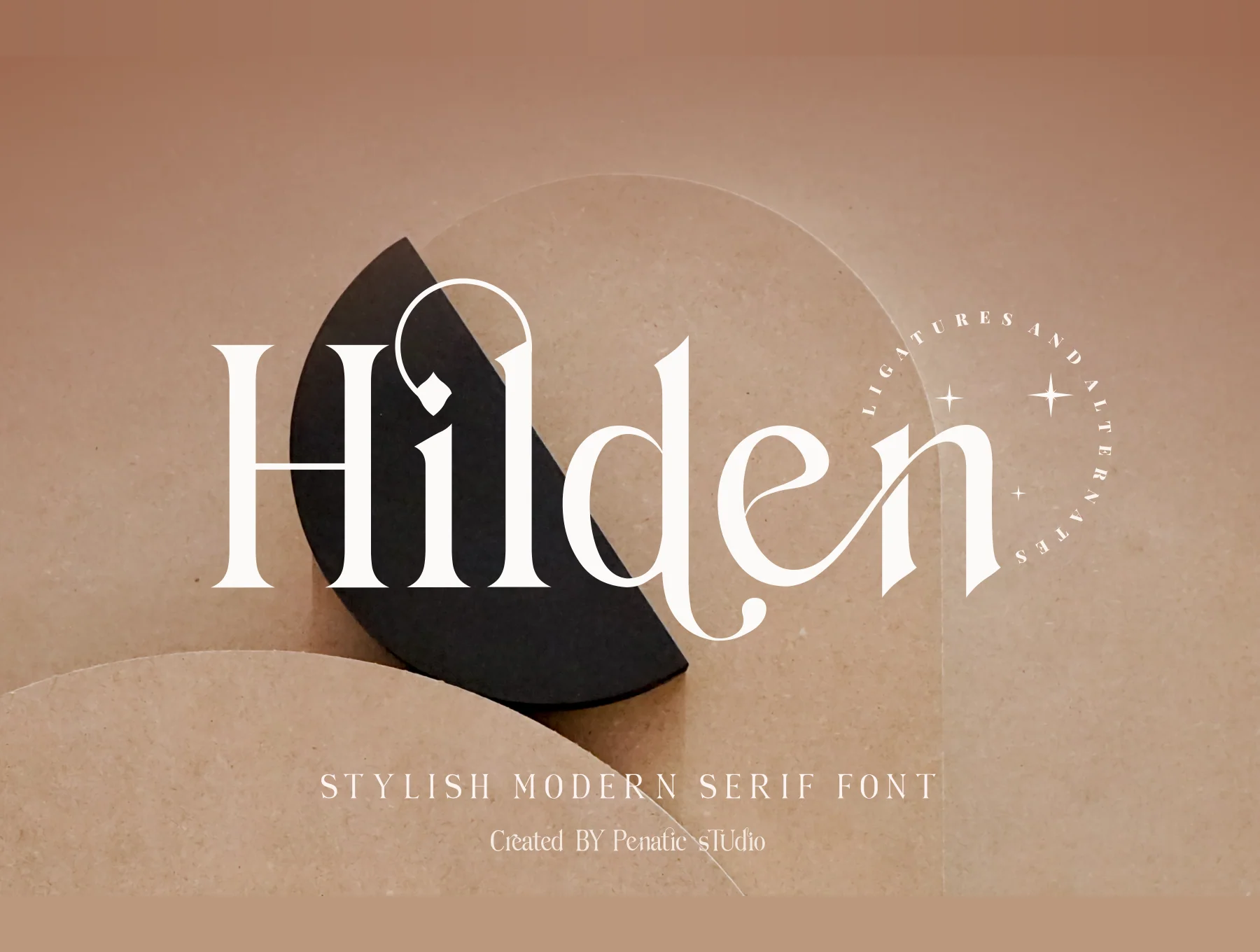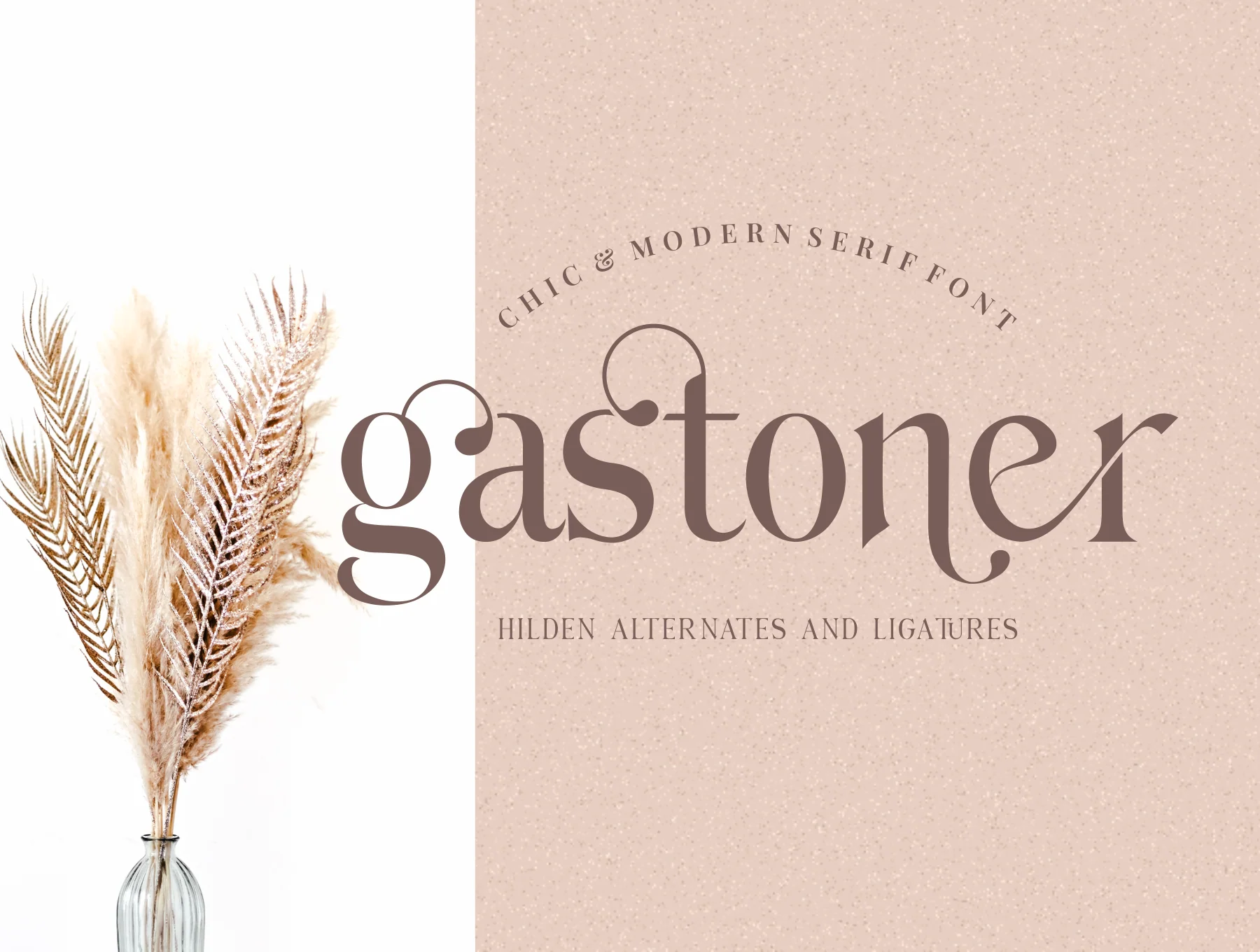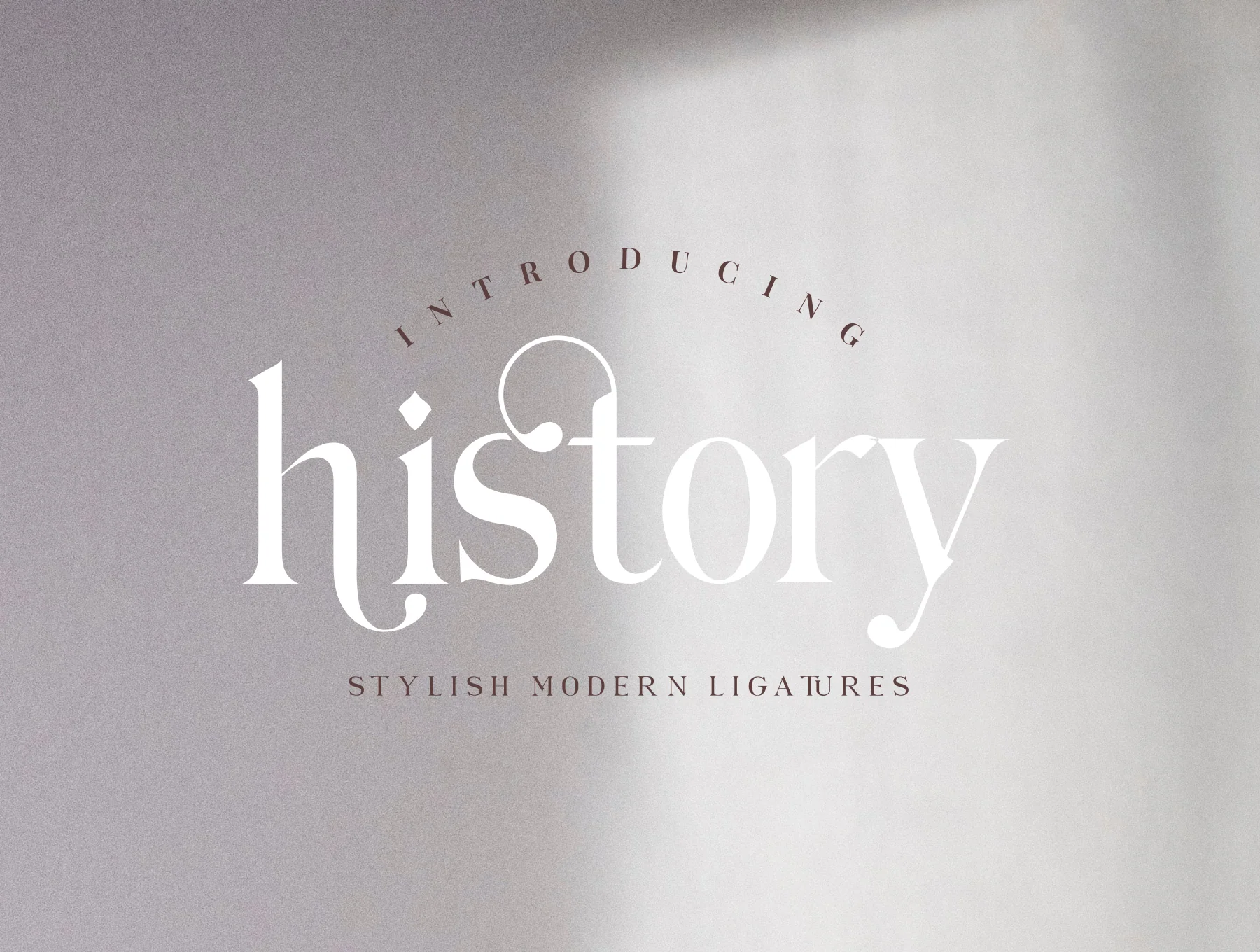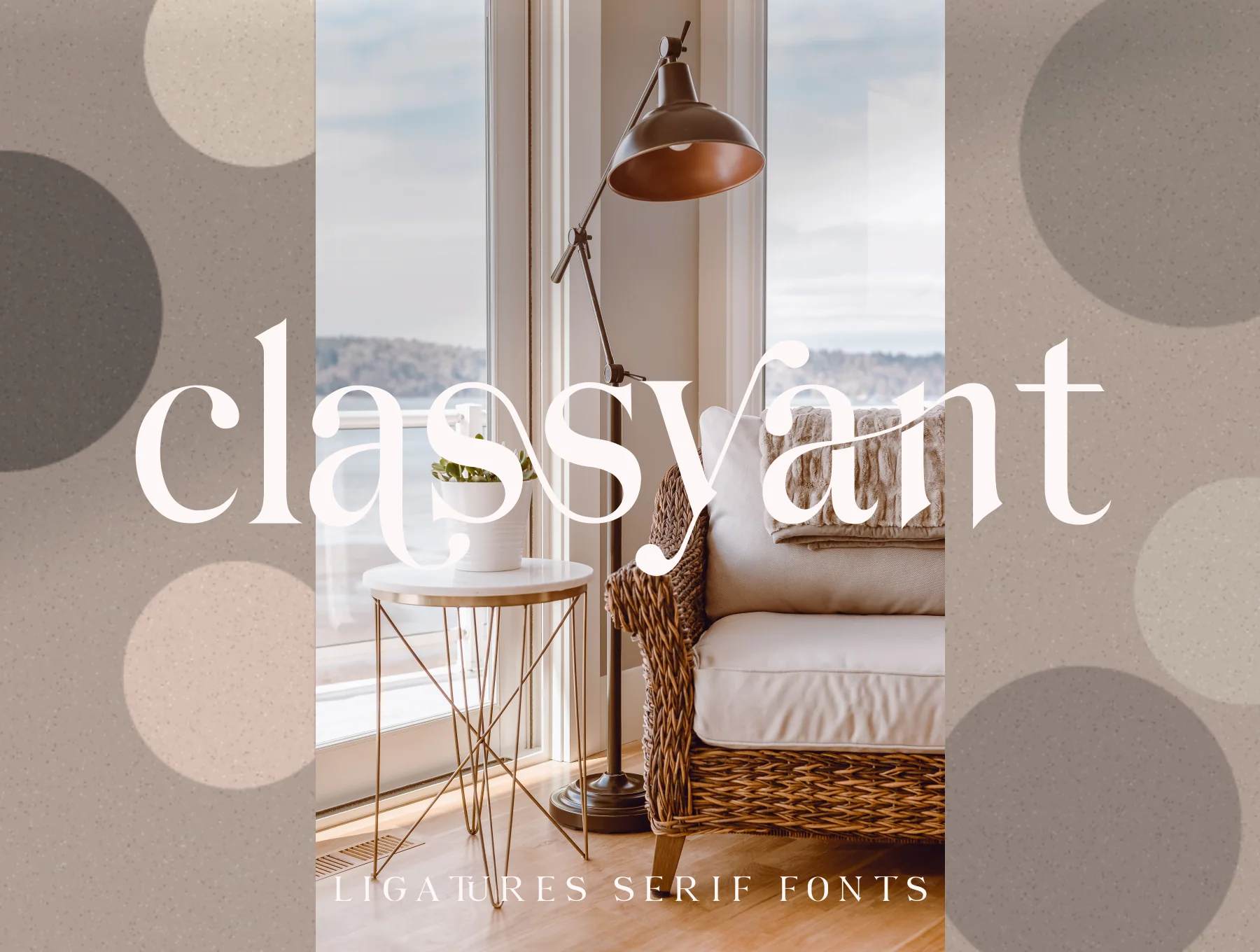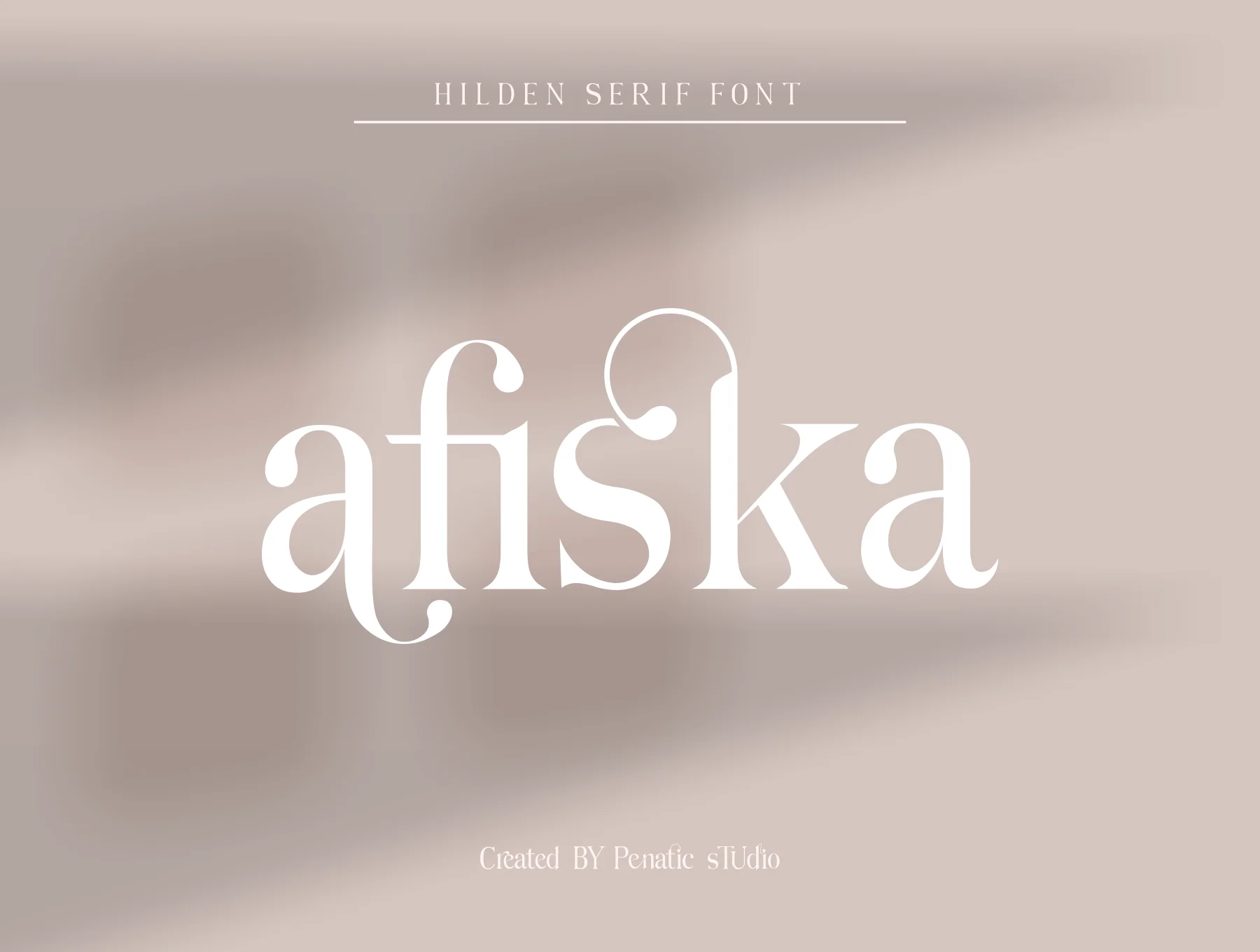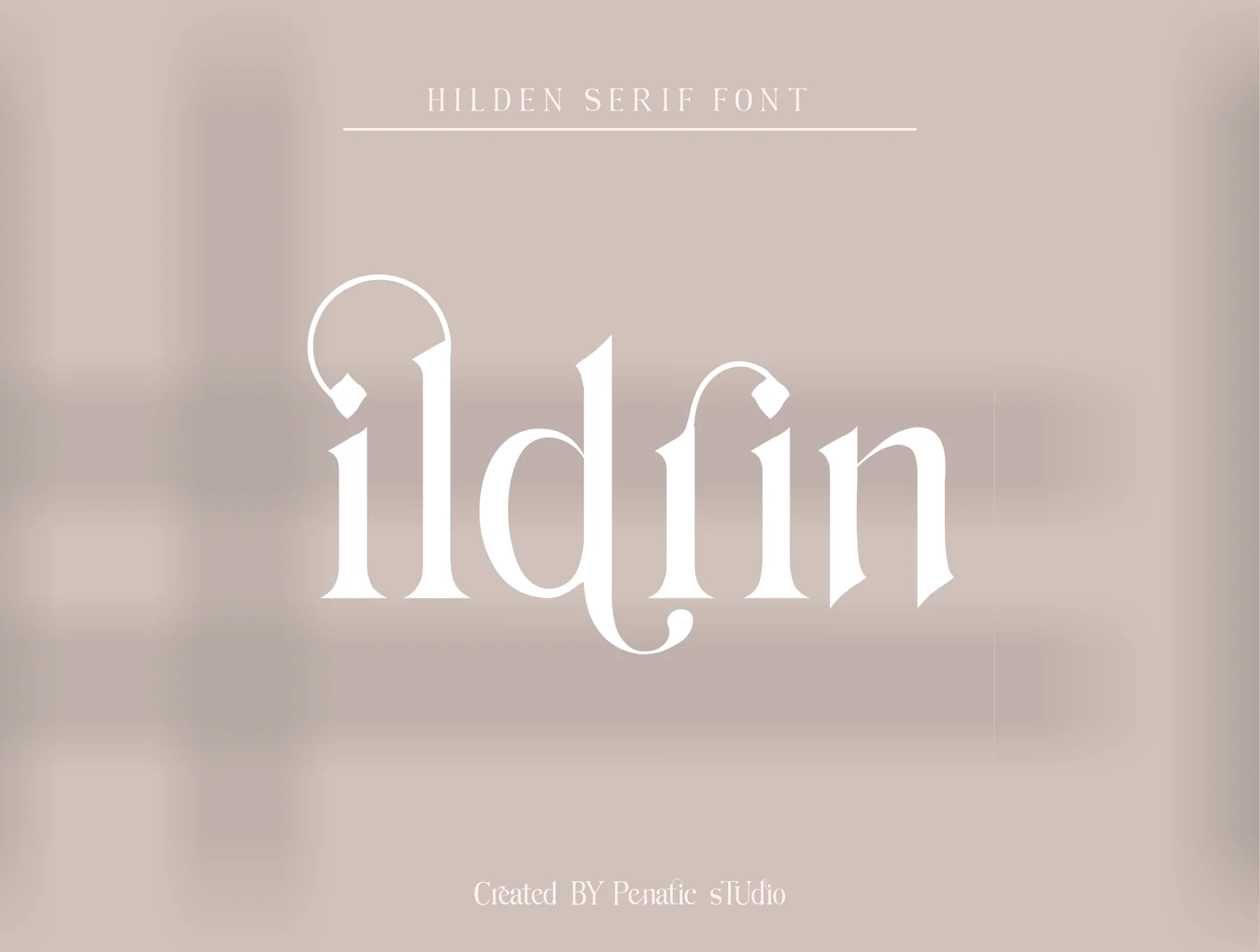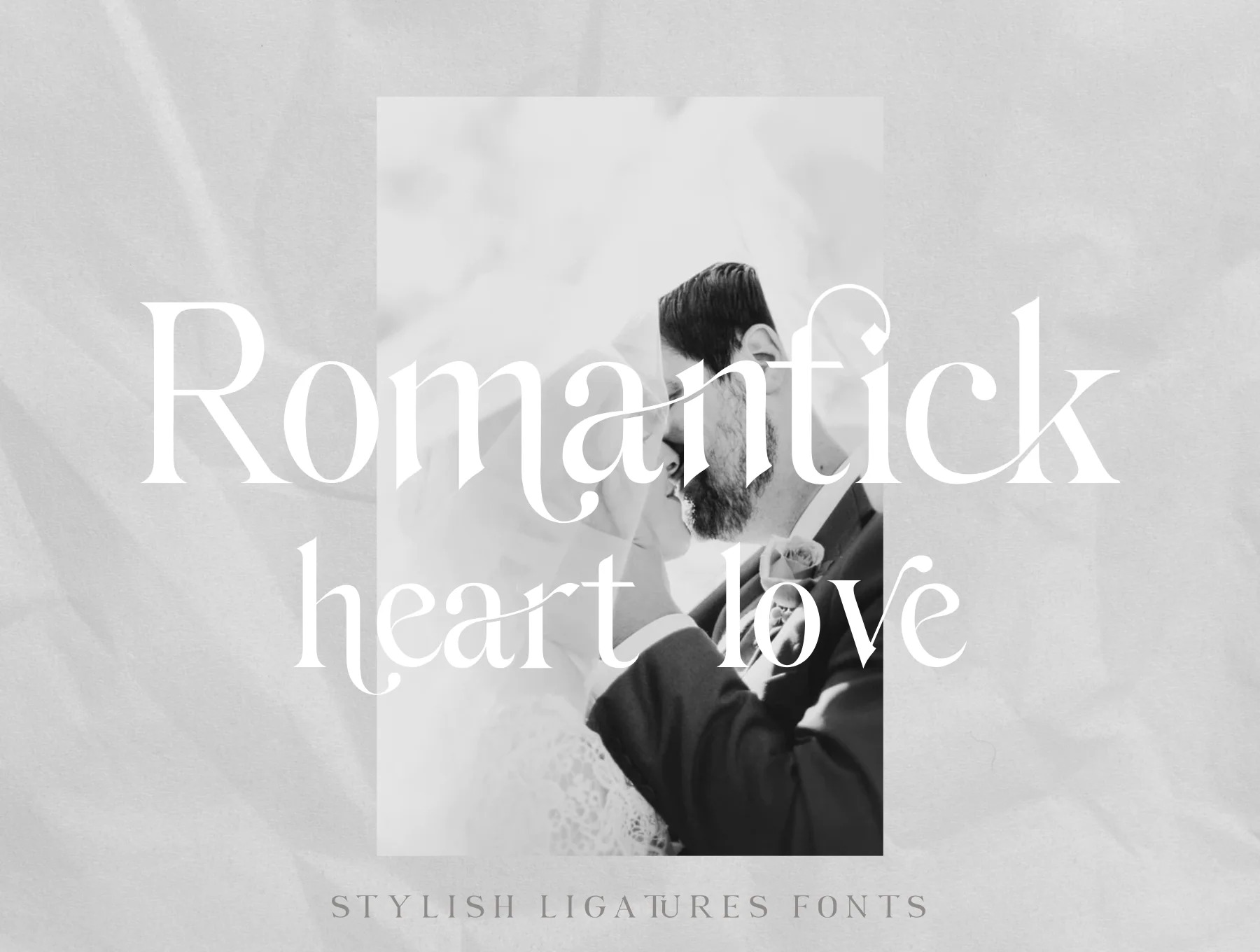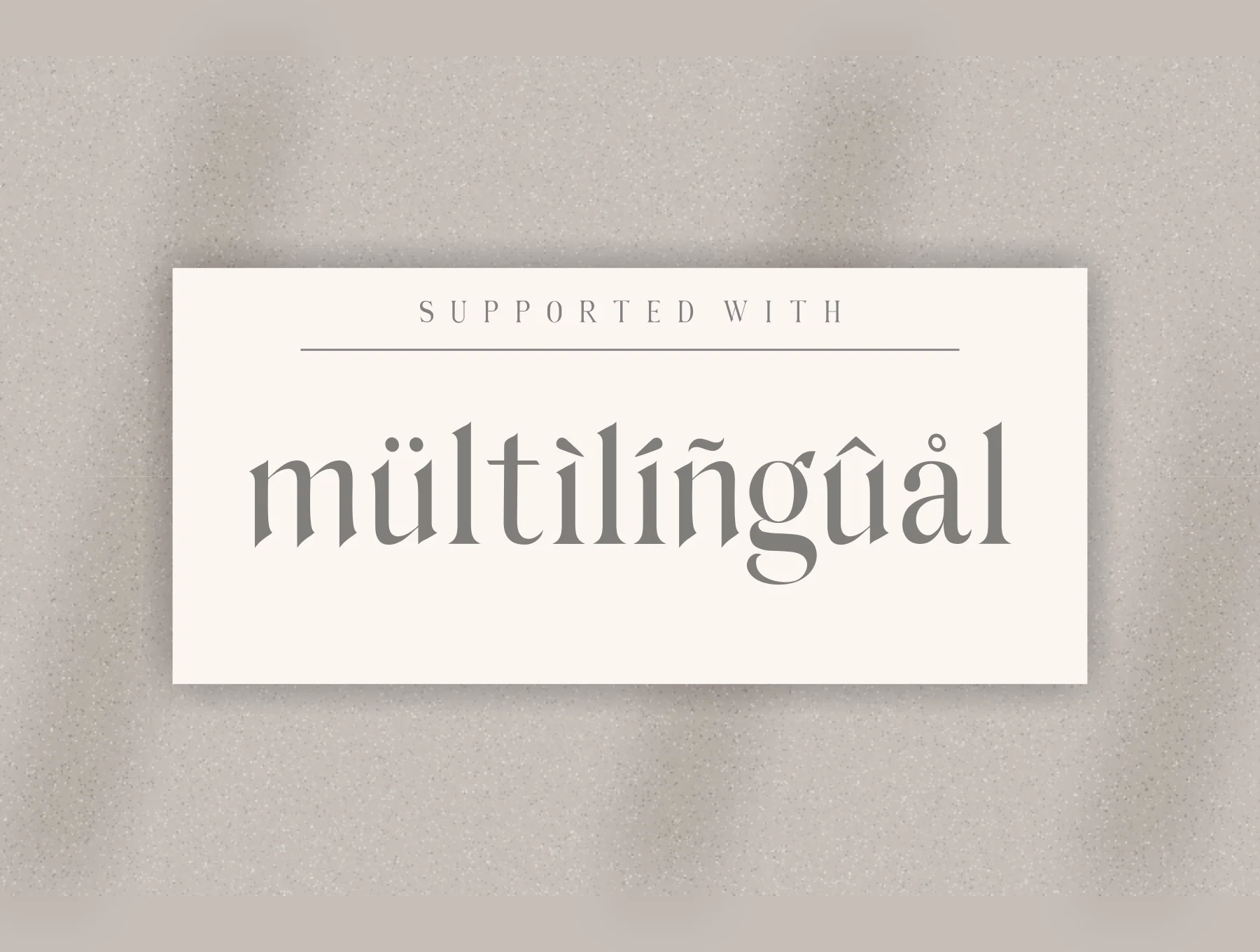
Hilden - stylish modern serif font
Refined Serif Typeface
Complete uppercase and lowercase alphabet
Contemporary and stylish
Ligatures plus alternate characters
HILDEN is an elegant serif font suited to logos, business cards, apparel branding, packaging, magazine titles, website visuals, editorial layouts, and text overlays on images. It includes stylish ligatures and refined alternates, with TTF, OTF, and WOFF files, easy installation, PUA encoding, and support for Adobe Illustrator, Photoshop, Microsoft Word, and more.